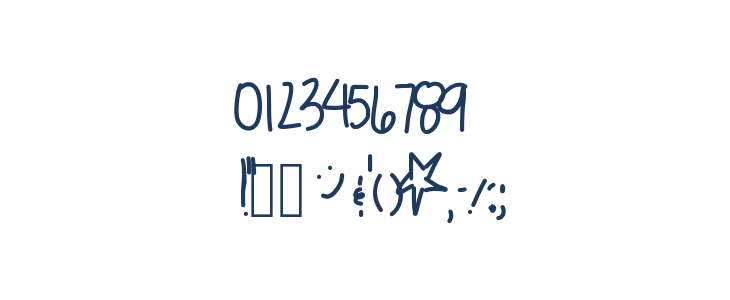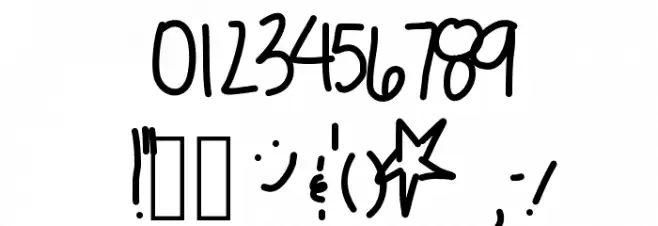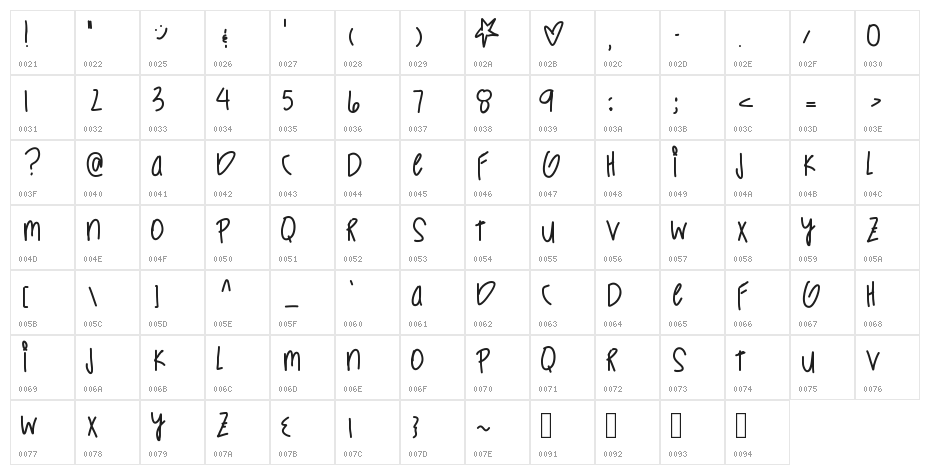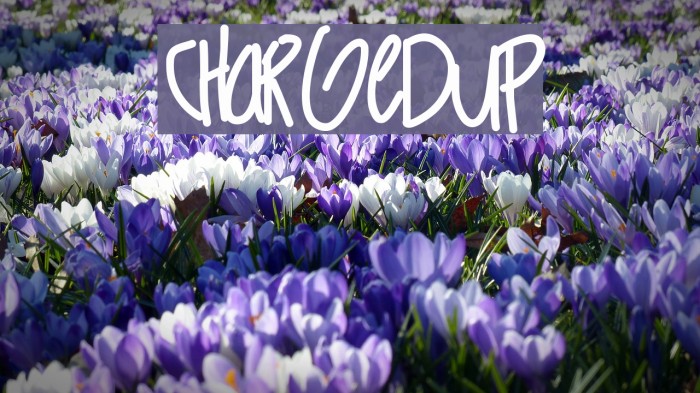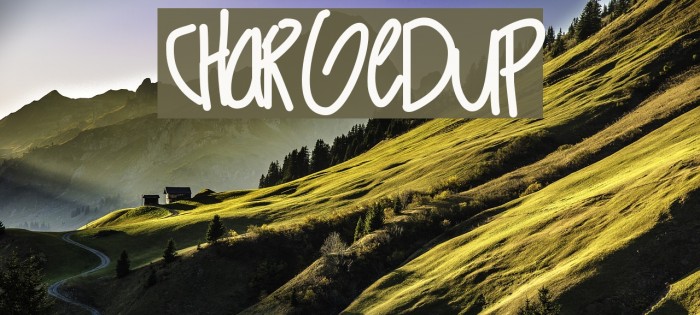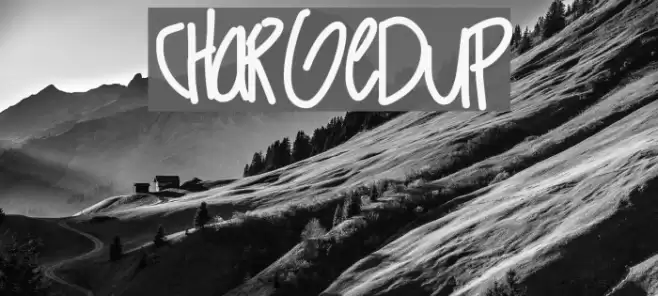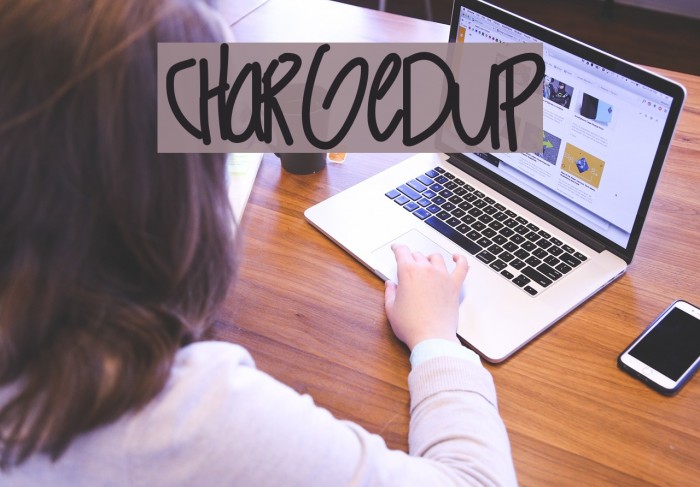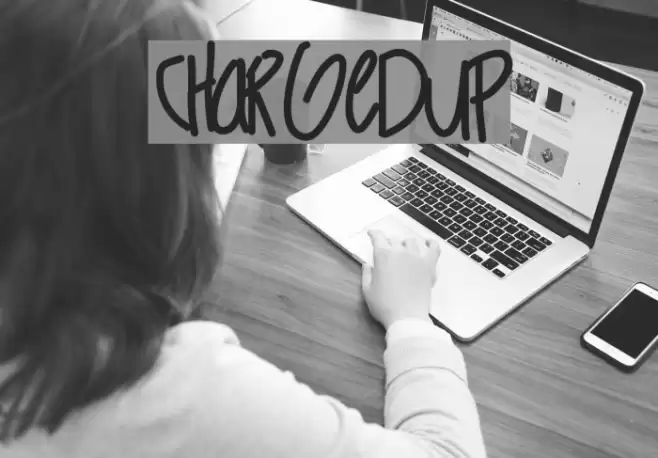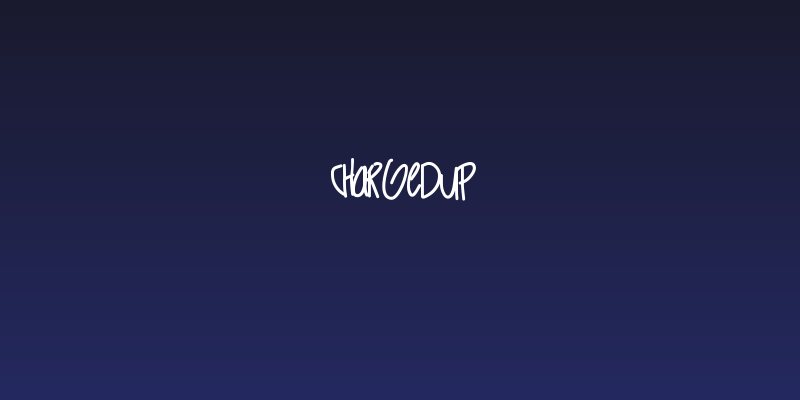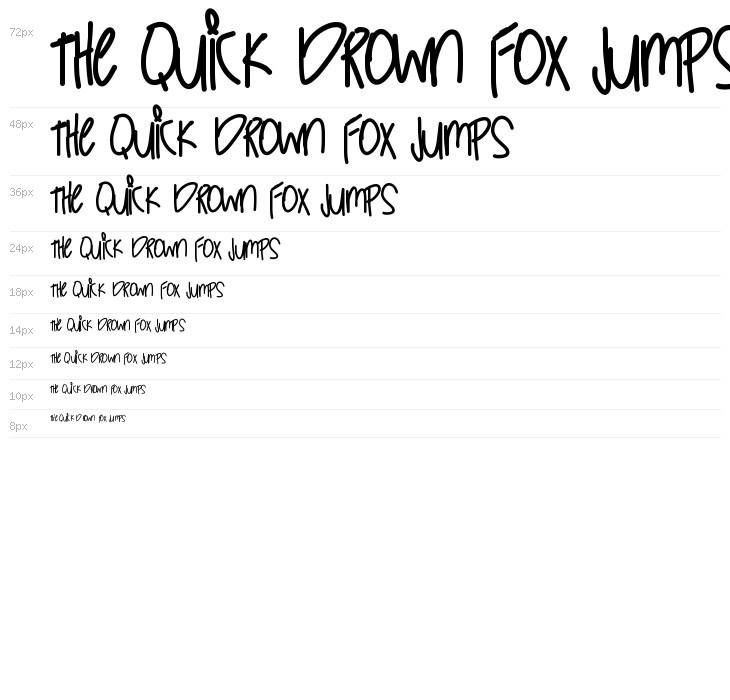
ChargedUp Font
ChargedUp Description
This font features a lively and energetic handwritten style, characterized by its playful and informal appearance. The letters are slightly slanted, giving a sense of movement and dynamism. The strokes are consistent in width, providing a uniform look while maintaining a casual feel. The characters are closely spaced, enhancing the cohesive and connected nature of the text. The font includes a full set of uppercase and lowercase letters, numbers, and a variety of special characters, making it versatile for different uses.
| Use Case | Logos, Headlines, Informal communications |
| Proposed Projects | Ideal for projects that require a personal touch, such as greeting cards, invitations, or social media graphics. It can also be used for branding that aims to convey a friendly and approachable image. |